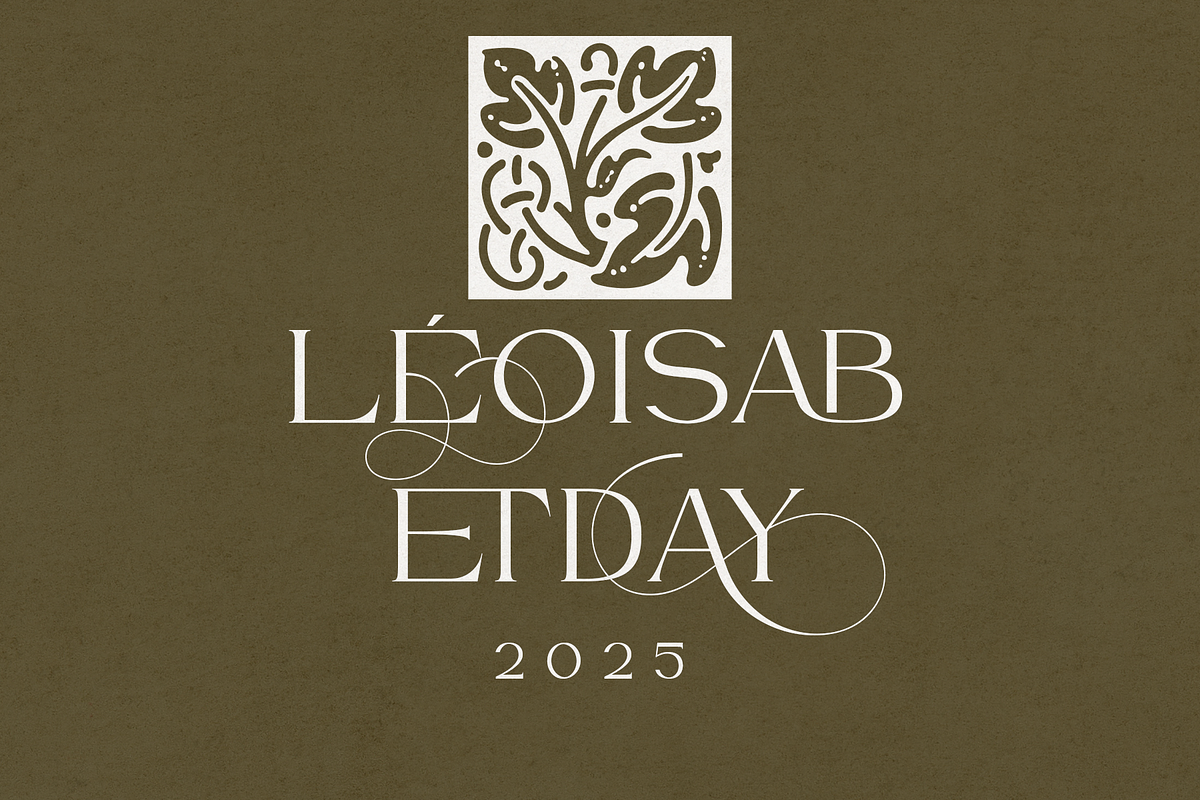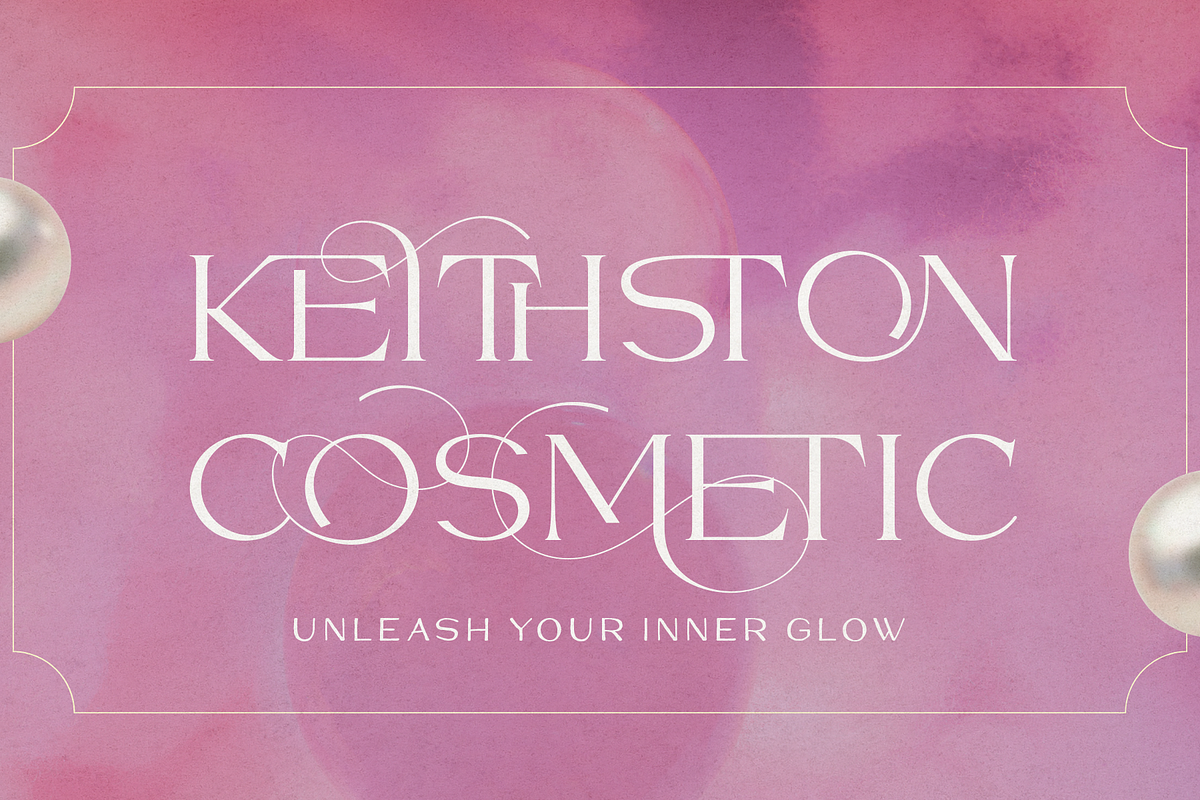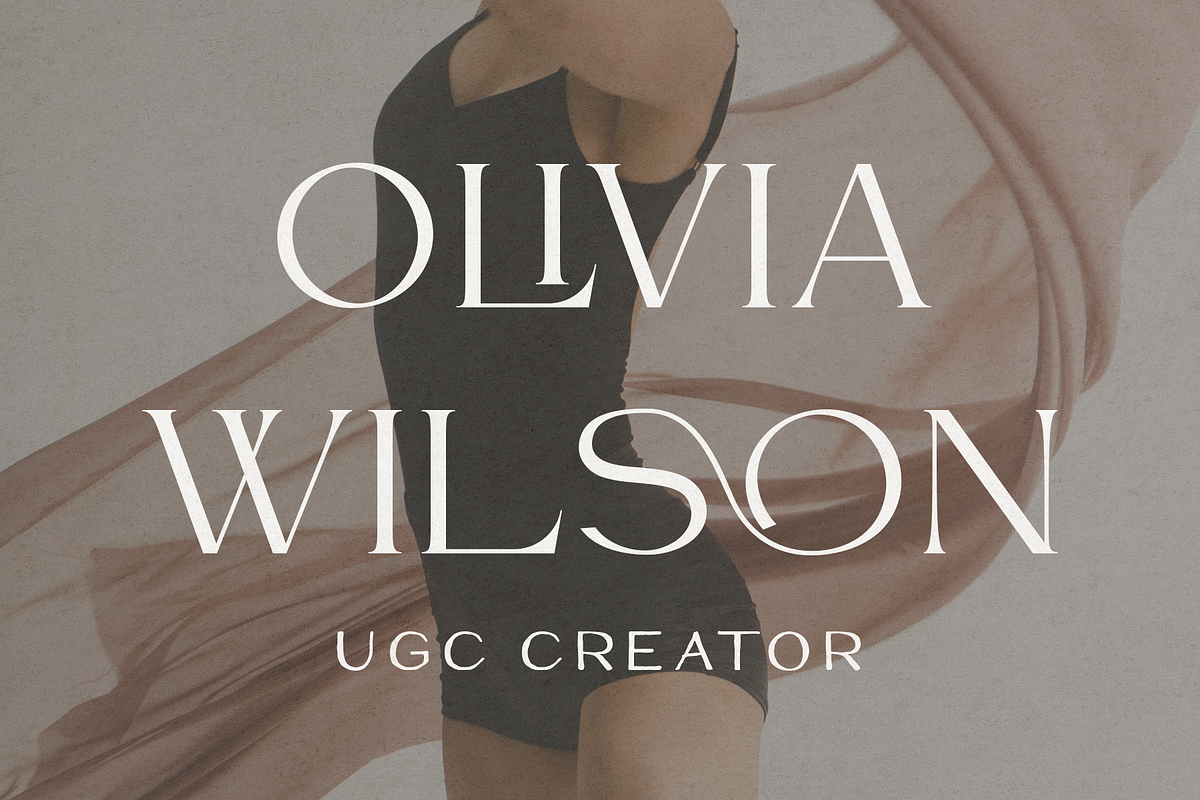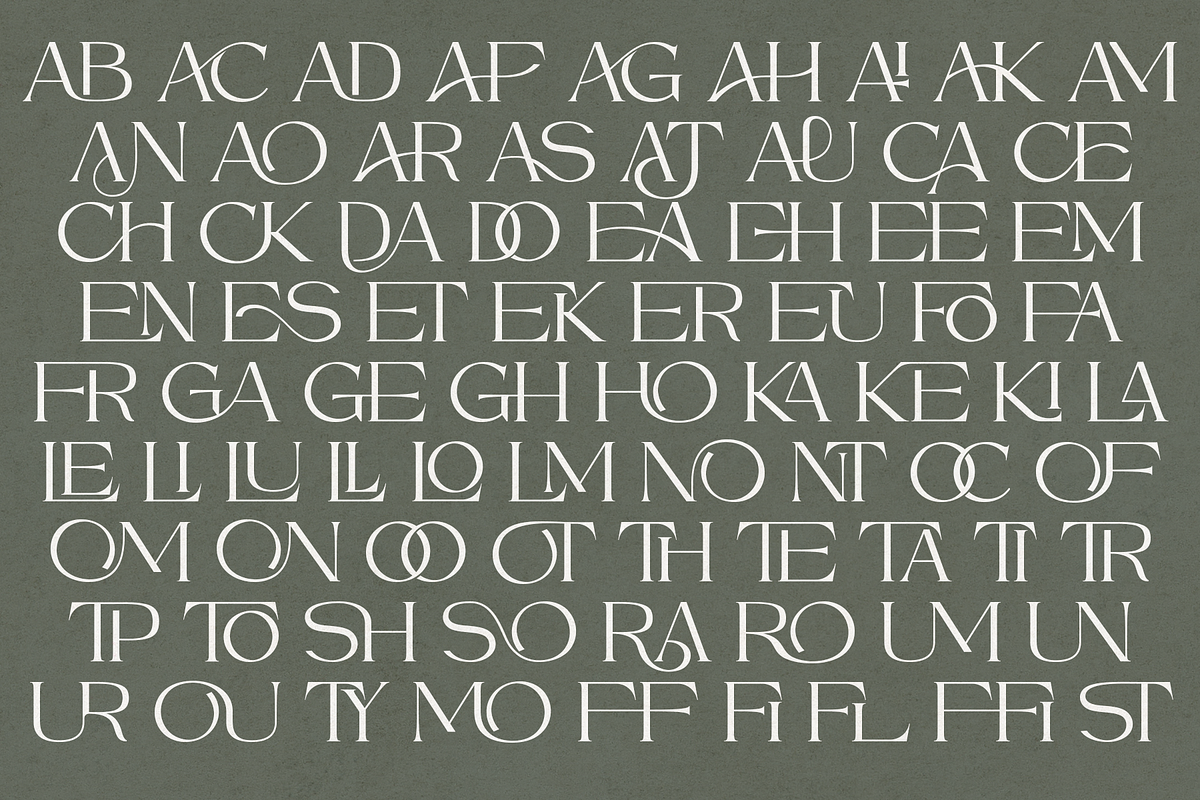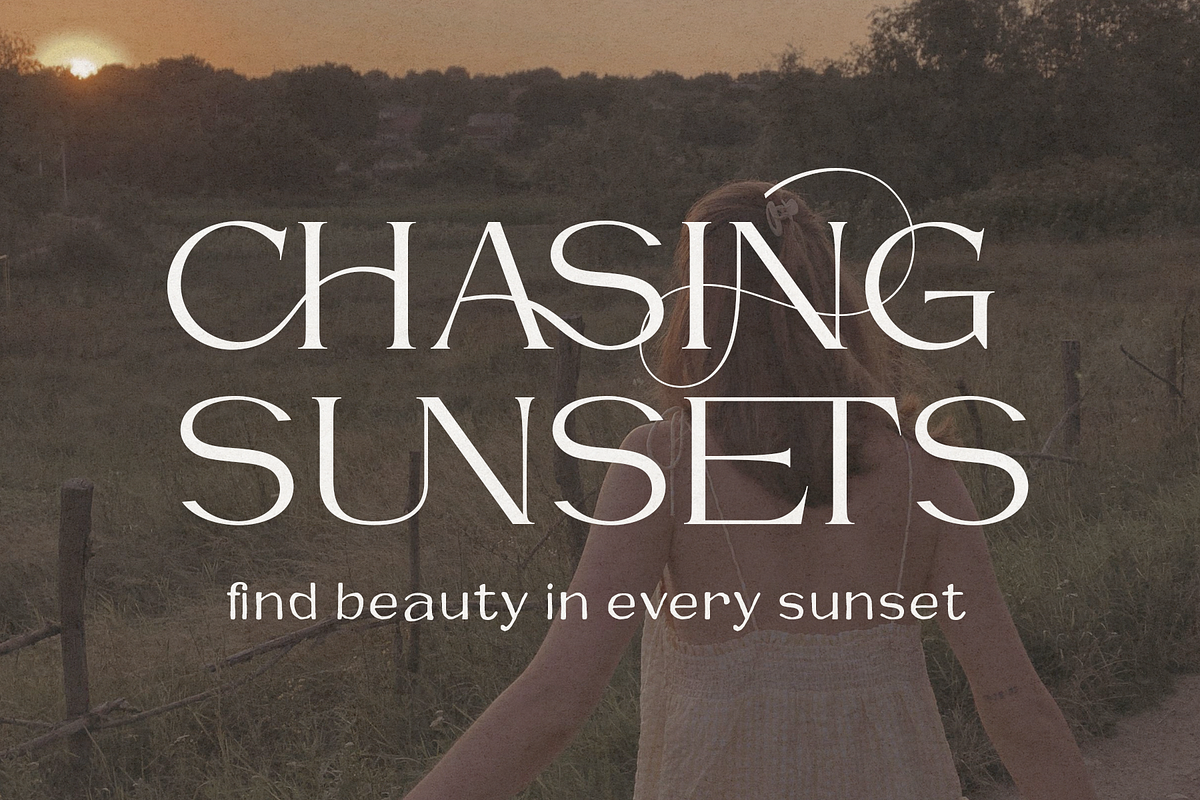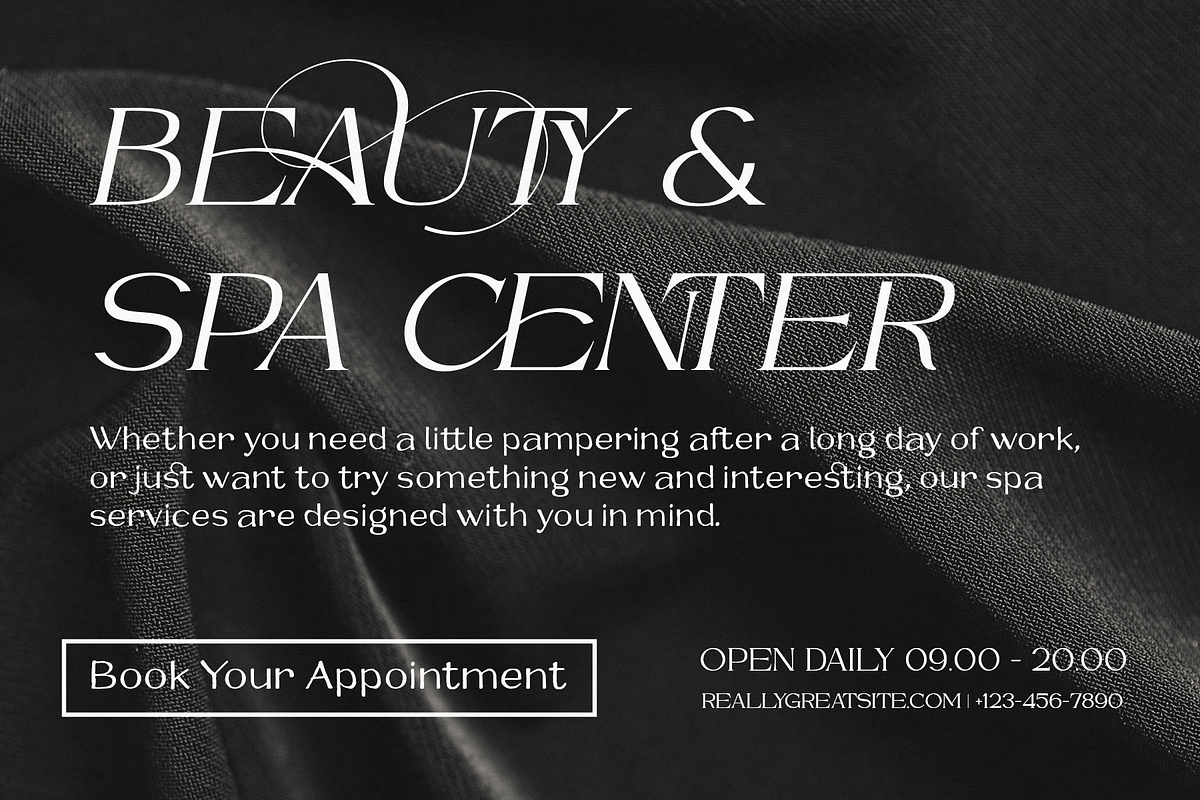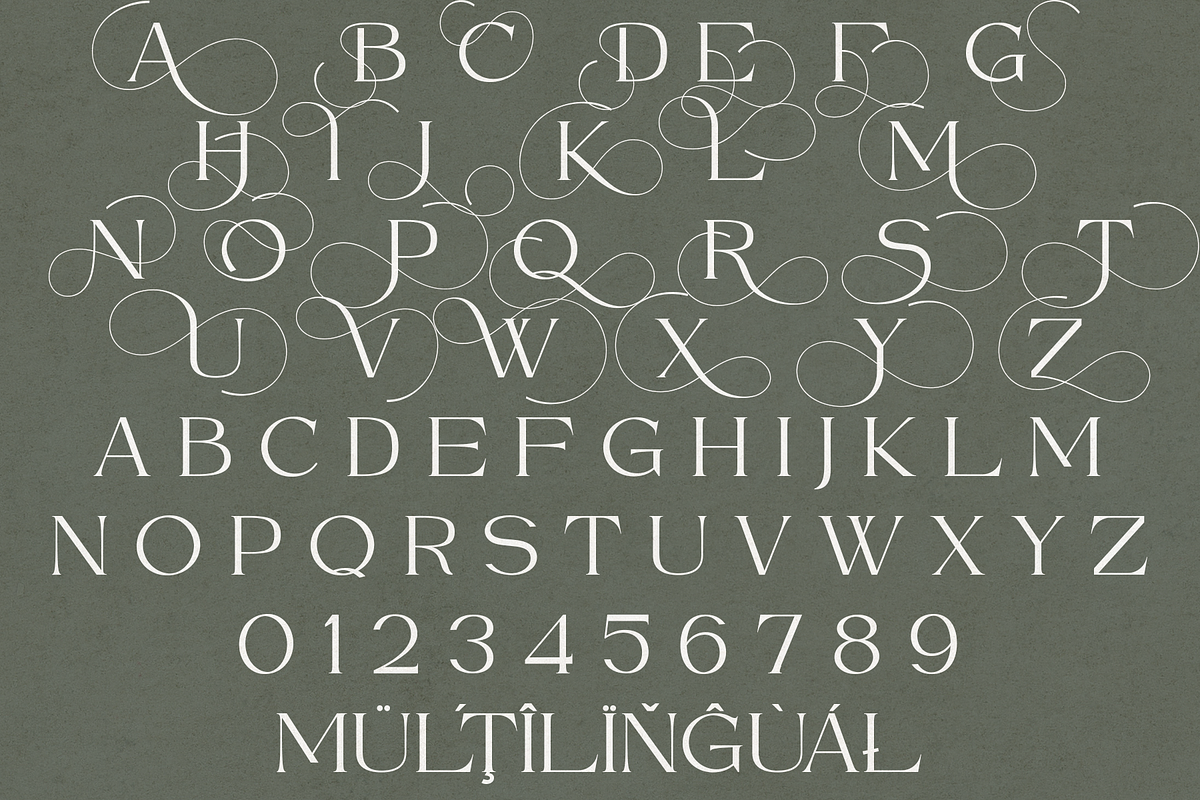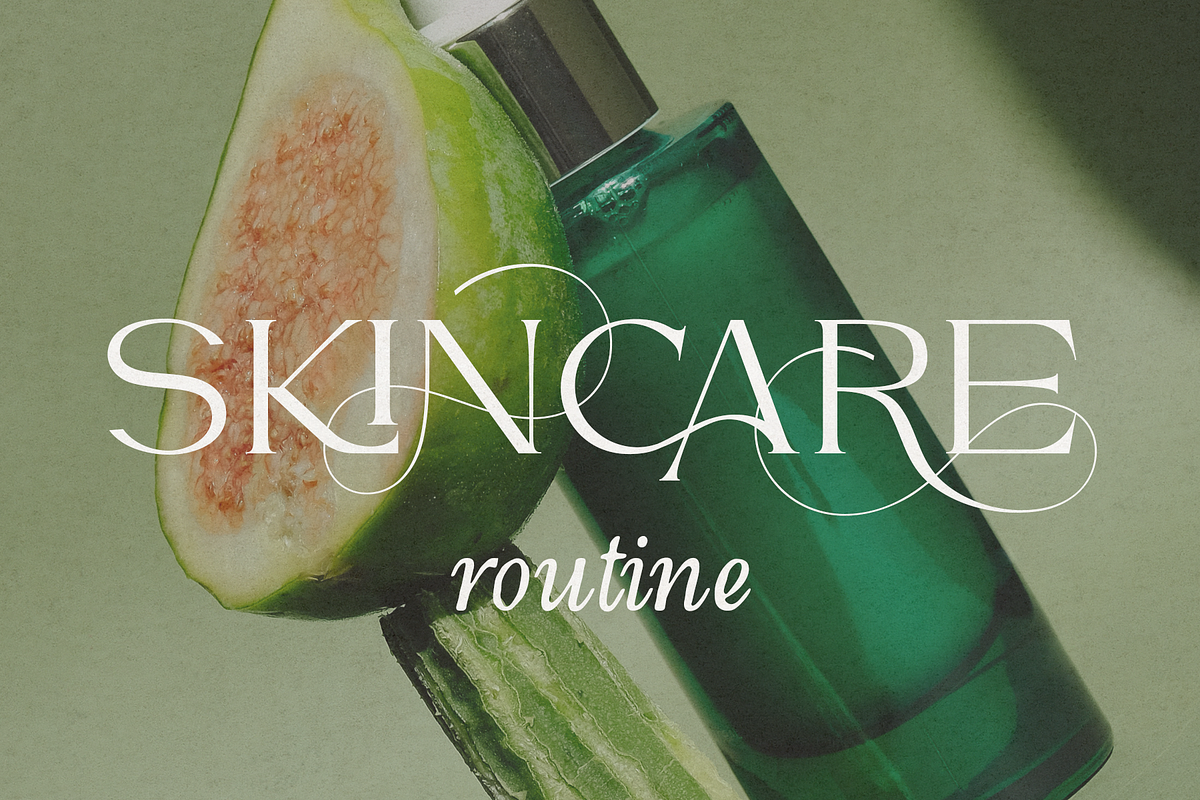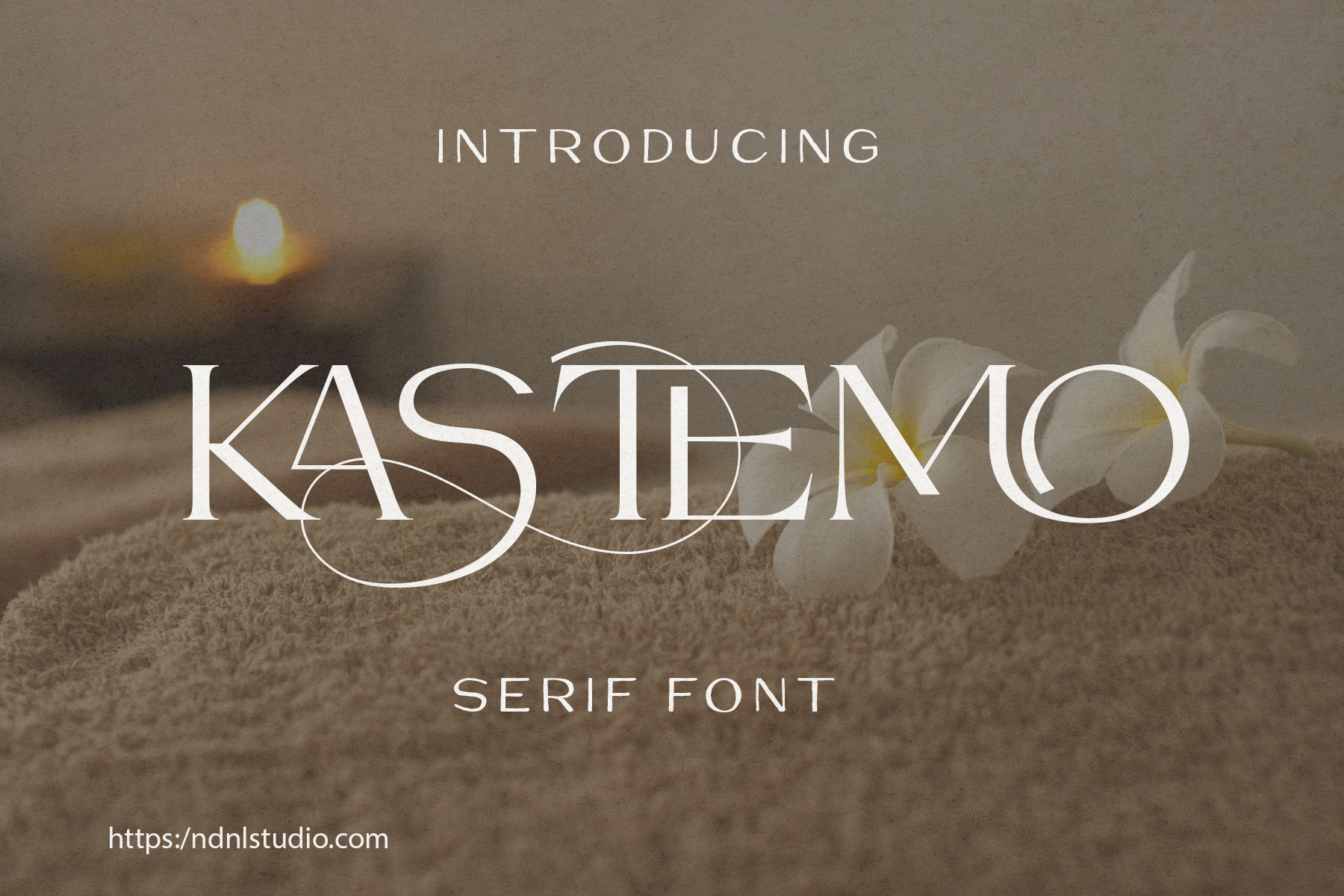
Kastemo - Serif Font
Kastemo is an elegant serif font that combines refined proportions with delicate, high-contrast strokes to create a sophisticated and graceful look. Its distinctive letterforms are enhanced by sweeping decorative curves and subtle flourishes, adding an artistic touch while maintaining a clean and balanced appearance.
With its luxurious yet expressive character, Kastemo is a beautiful choice for logos, fashion branding, editorial designs, wedding stationery, invitations, beauty products, packaging, posters, and elegant social media graphics.
– Character set A-Z
– Uppercase & Lowercase
– Numerals & Punctuation
– Accented Characters (West Europe)